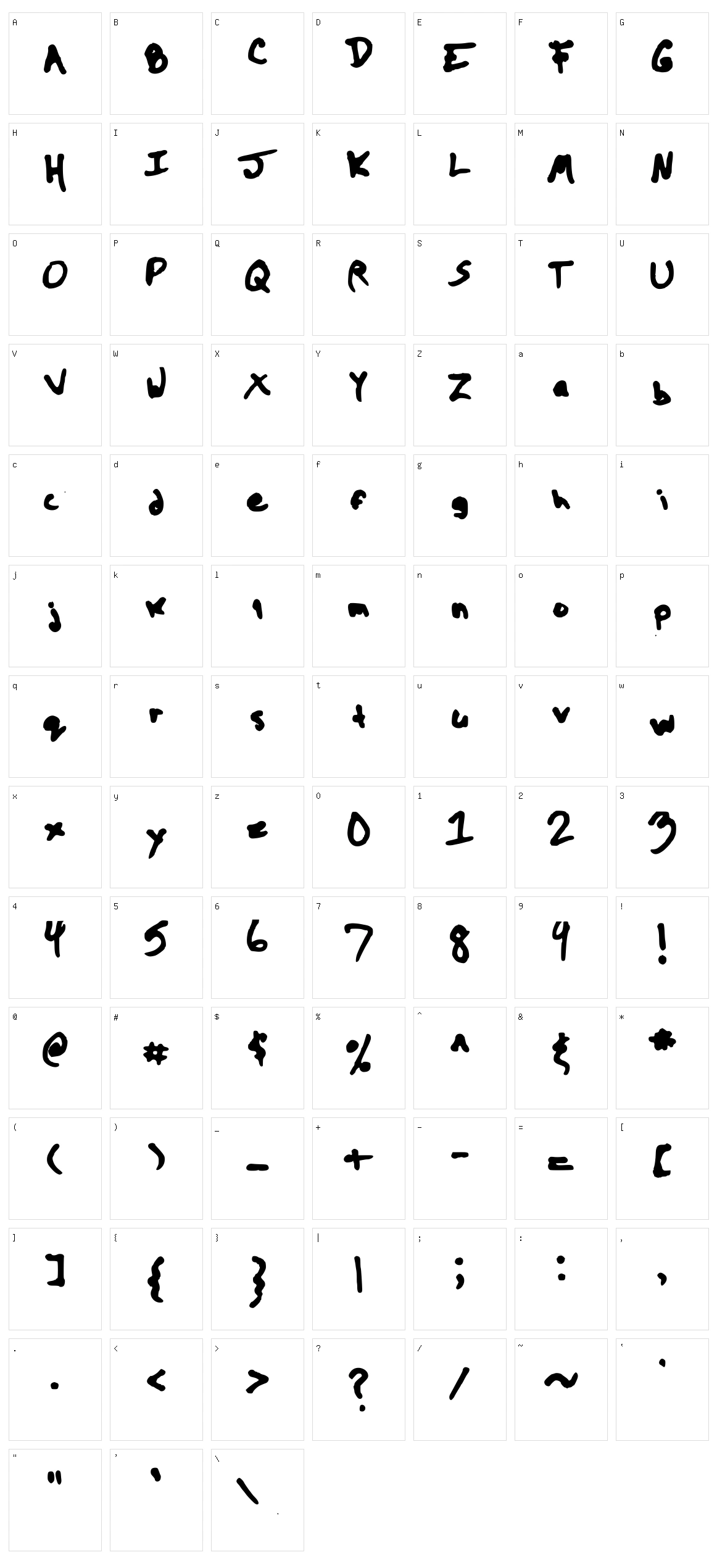
The free font The Kool Font is carefully designed by Christian, showcasing a thoughtful balance of creativity and usability and falls under the Script font style. When you download the ZIP file, it contains only 22.06 KB of font files, making it lightweight and quick to download. Please review the license details below to understand permitted usage and distribution rights. If license information is not available, we recommend using this font for personal projects only or contacting the author directly for commercial usage permissions.